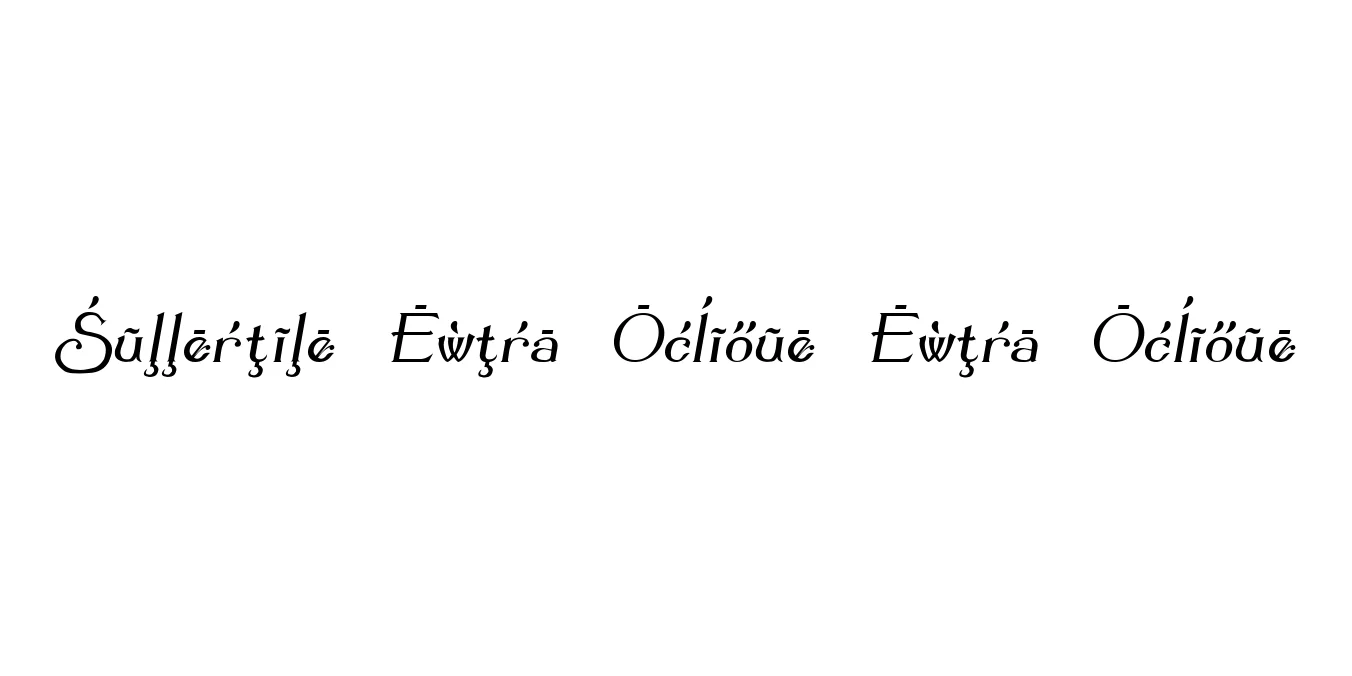
Summertime Extra Oblique
Designed by Youssef Habchi
Summertime Extra Oblique is a dynamic and fluid typeface designed to capture the breezy, effortless nature of the summer season. Created by Youssef Habchi, this specific variant features an intensified slant that emphasizes motion and speed, making it a standout choice for high-energy visual layouts. The letterforms are crafted with smooth, rhythmic curves and a consistent weight that balances elegance with a casual, approachable aesthetic.
This typeface is particularly effective in display settings where the goal is to command attention immediately. Whether it is used for fashion editorials, beach-themed branding, or high-velocity sports graphics, the Extra Oblique style provides a distinct sense of forward momentum. Its versatility allows it to bridge the gap between traditional handwriting and modern digital typography, ensuring a unique and progressive identity for any creative project.
Summertime Extra Oblique Best Uses
High-velocity logos and athletic apparel design requiring a sense of speed.
Stylish headlines and artistic layout headers for modern magazines.
Vibrant Instagram graphics and seasonal promotional stories.
Capturing the high energy of summer festivals, beach parties, and concerts.